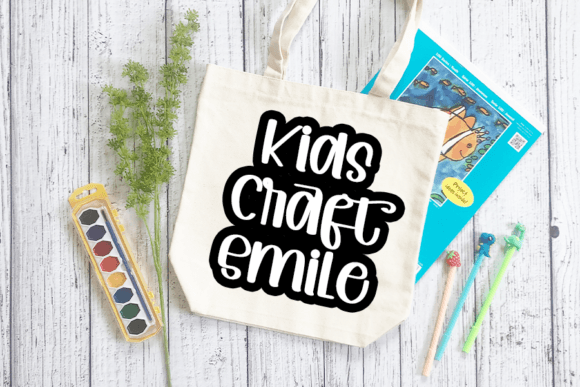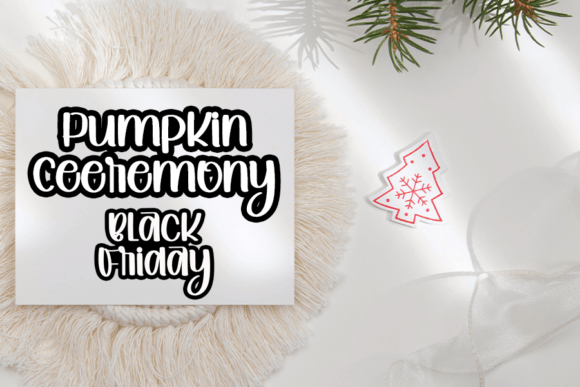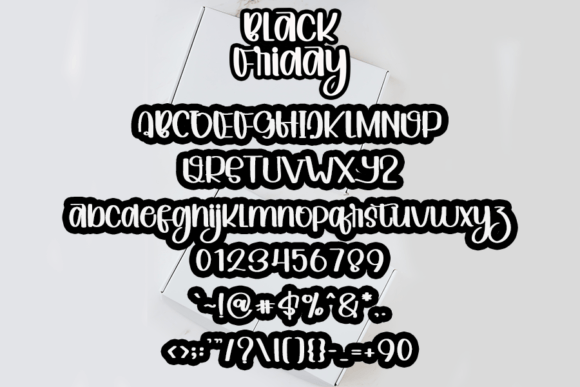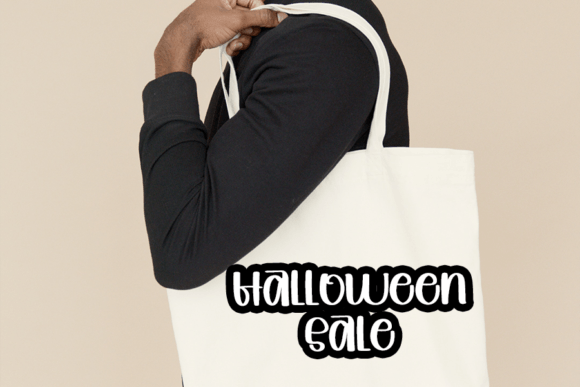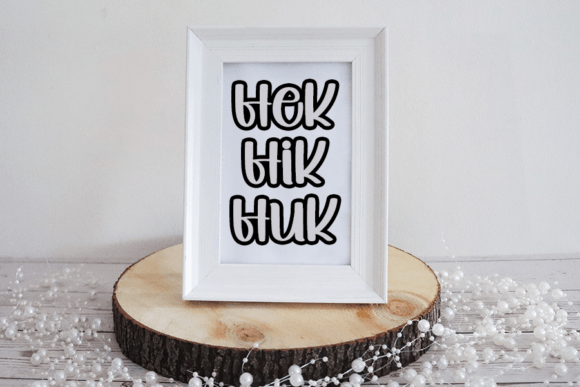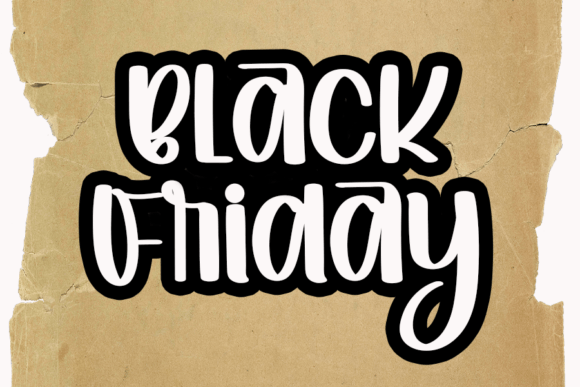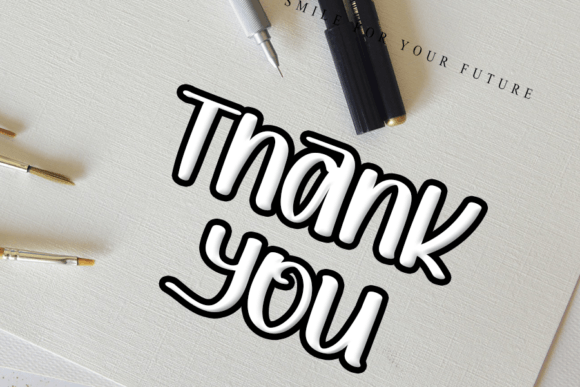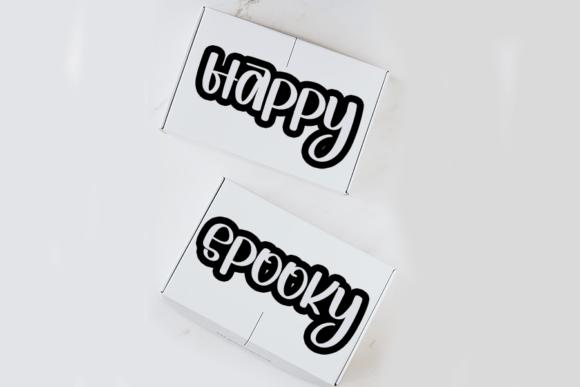
Hello Friday Font
About Hello Friday Font
“Hello Friday” is a stunning handwritten font that exudes an air of sophistication and contemporary elegance. With its refined style, this font becomes an exceptional choice for a wide range of design applications, offering versatility that can enhance the visual appeal of your projects. From branding to social media posts, stationery to wedding designs, “Hello Friday” brings an element of class and modernity to your creative work.
When it comes to branding, “Hello Friday” introduces a unique and stylish script that can effectively convey your brand identity. Whether it’s used for logos, promotional materials, or corporate identity, this font adds a touch of class and memorable sophistication to your brand, leaving a lasting impression on your audience.
Invitations and stationery take on an elevated and refined look with the use of “Hello Friday.” Whether it’s for weddings, formal events, or special occasions, this font sets the tone for a chic and elegant celebration, making your invitations and stationery truly captivating.
Social media posts and graphics benefit from “Hello Friday’s” modern and sophisticated aesthetics. It enables your content to stand out with a touch of elegance, helping you engage your audience effectively and maintain a polished online presence.
Wedding designs, in particular, are transformed by “Hello Friday’s” exquisite script. Whether used in invitations, save-the-dates, or other wedding materials, this font adds a sense of refined beauty to these special moments, ensuring they are cherished and remembered.
In essence, “Hello Friday” is a font that radiates sophistication and modernity, making it a valuable asset for a myriad of design projects. Its ability to convey elegance and class to your work ensures it is a trusted choice for designers and creatives looking to create projects that exude timeless beauty and contemporary charm.